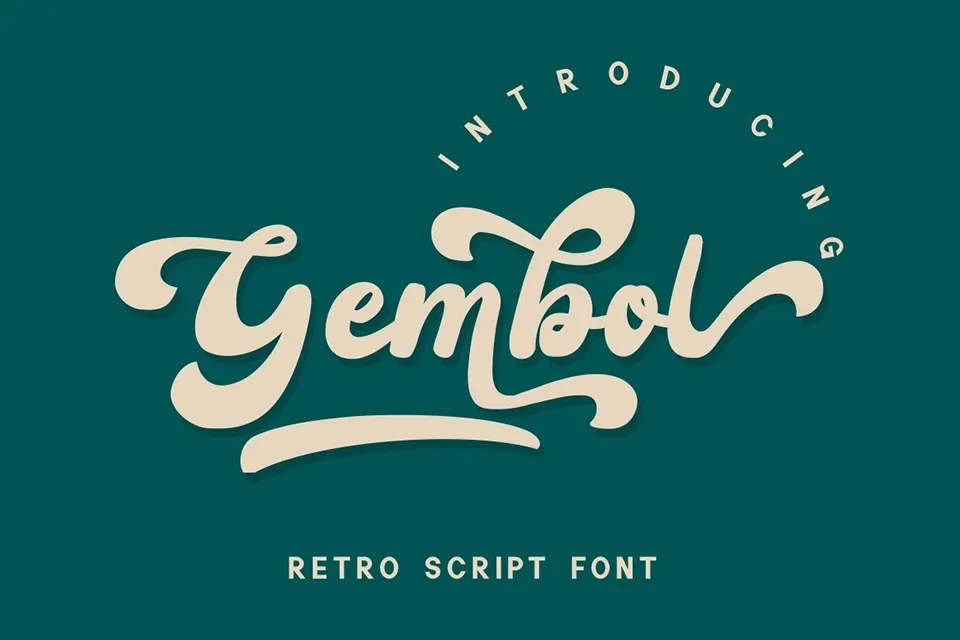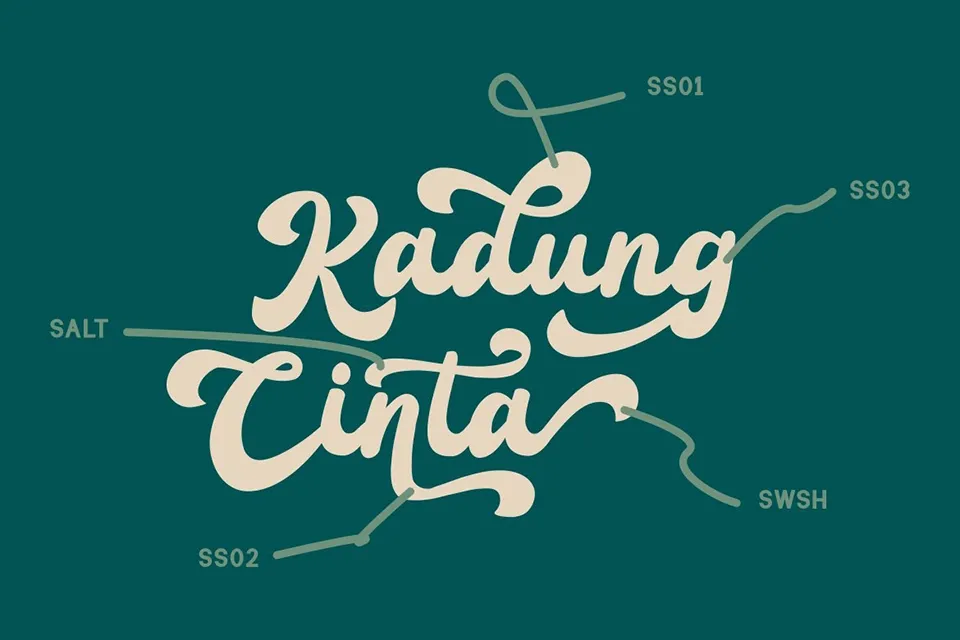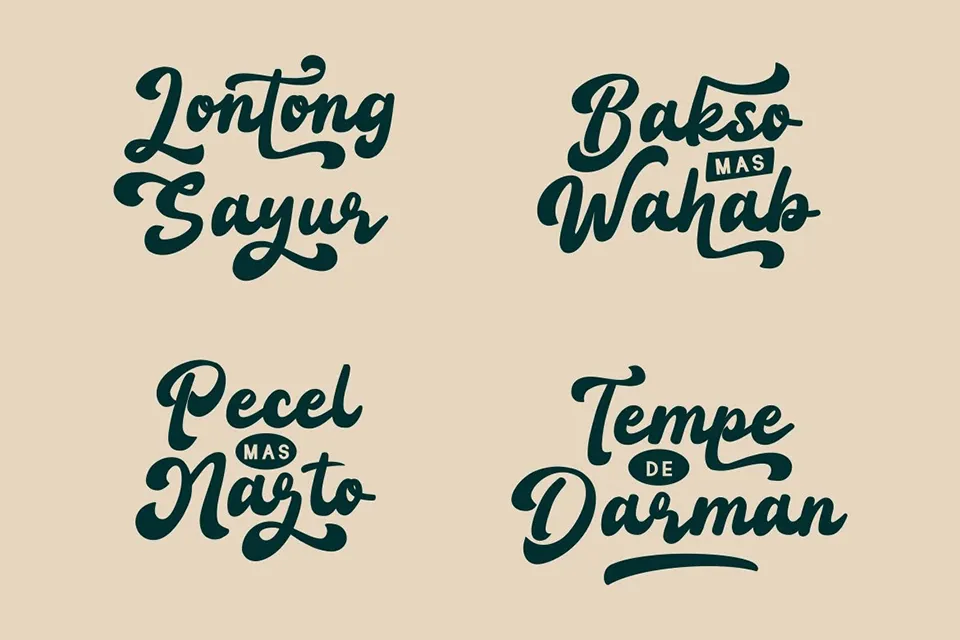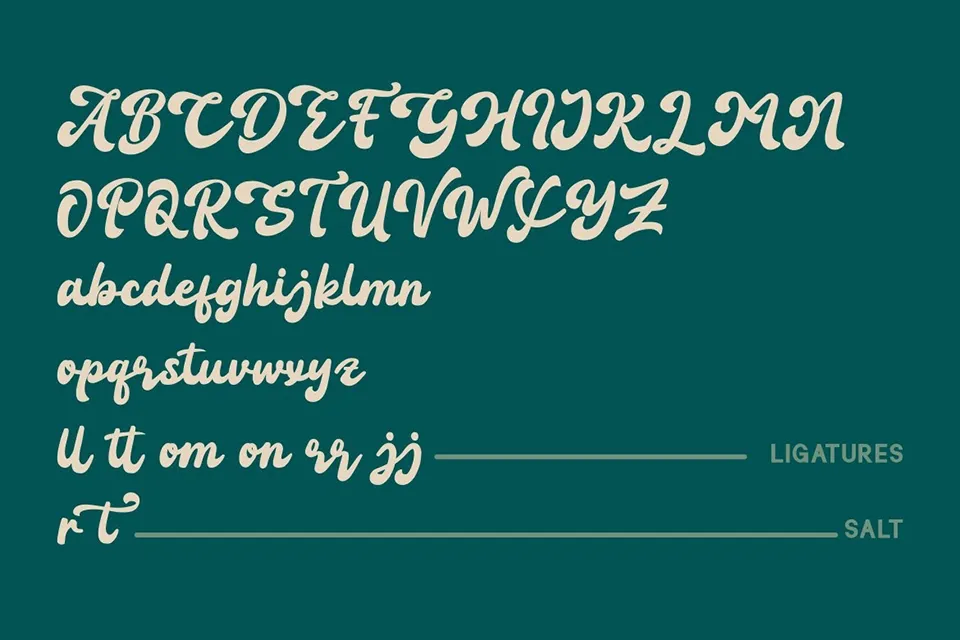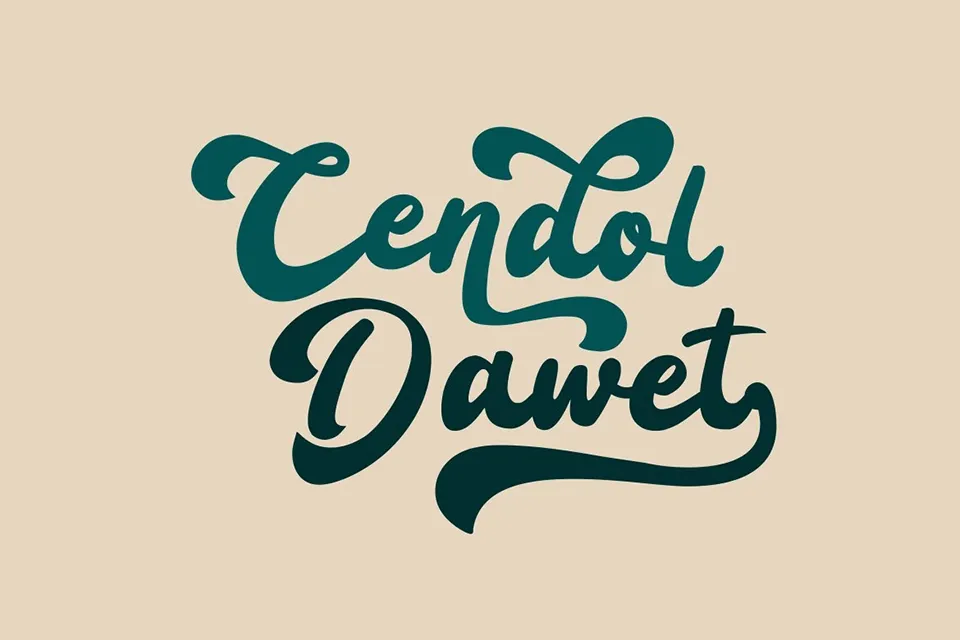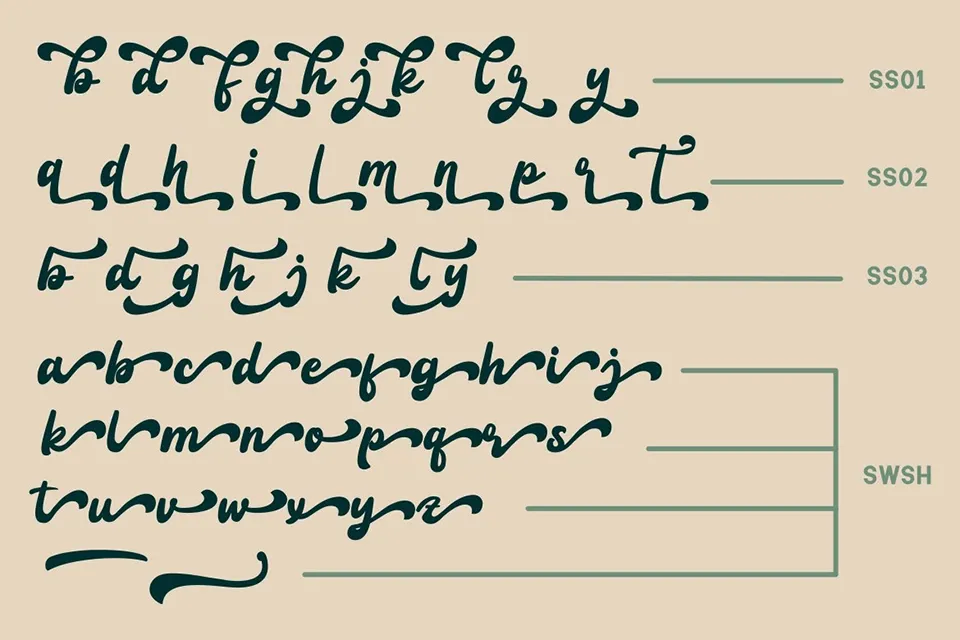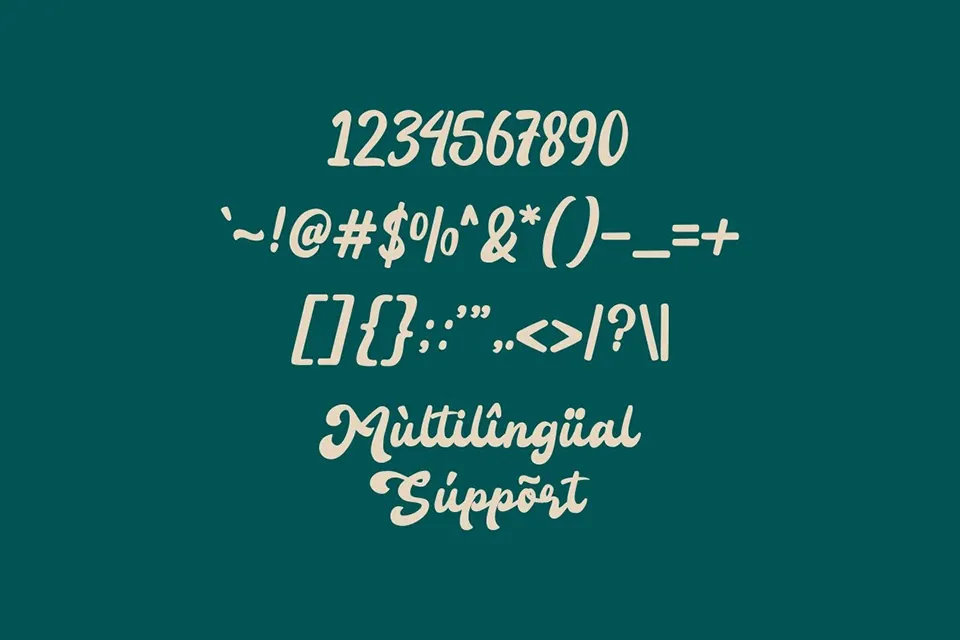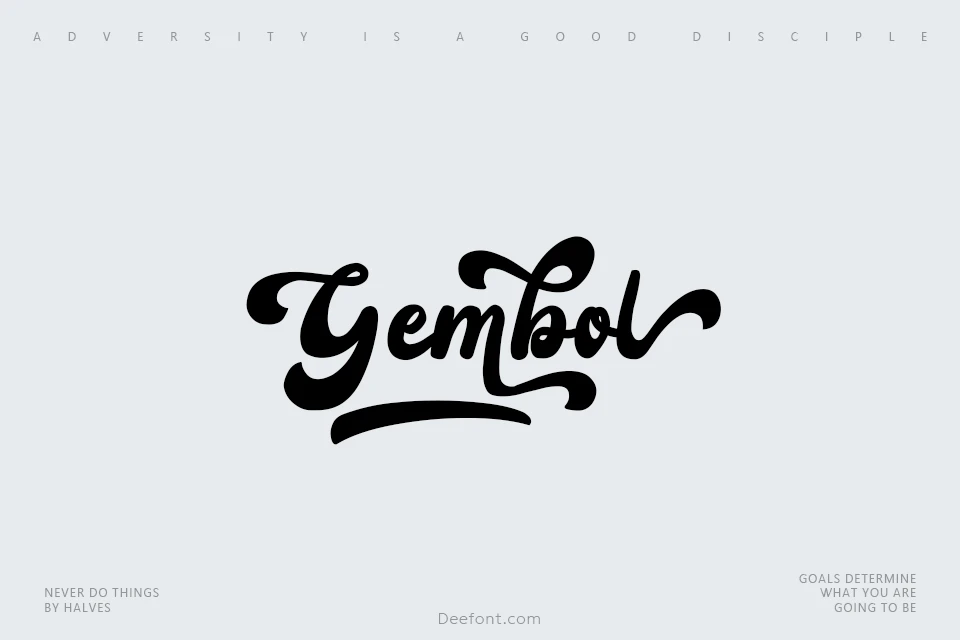
Gembol Font
Gembol Font is a bold and dynamic retro script typeface designed to bring a sense of nostalgia and energy to your creative projects. Featuring smooth curves, flowing strokes, and a vintage-inspired aesthetic, this font is perfect for branding, logos, packaging, posters, and social media designs. Its playful yet elegant style captures the essence of retro charm while maintaining modern versatility. Gembol Font’s unique letterforms and artistic flair make it ideal for creating eye-catching visuals that stand out. Whether used for bold headlines or decorative accents, this typeface adds personality and a timeless appeal to any design.